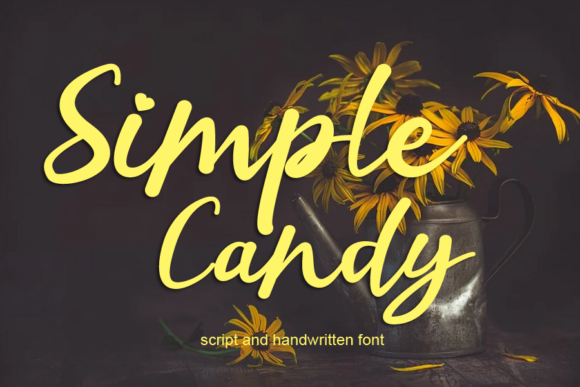
Introducing Simple Candy Font, an exquisite and captivating handwritten typeface designed to add a touch of elegance and charm to your digital creations. Let your words flow effortlessly with this beautiful script font, perfect for crafting heartfelt messages and leaving a lasting impression.
Imagine the delight of your loved ones as they receive your wedding invitations, meticulously adorned with the whimsical strokes of Simple Candy Font. Your thank-you cards will exude a warmth and sincerity that will make every recipient feel cherished. Transform your cherished quotes into breathtaking works of art that inspire and uplift the hearts of all who behold them.
With Simple Candy Font, your greeting cards become more than mere messages—they become intimate expressions of your love and care. Its delicate curves and flowing lines lend a personal touch to every handwritten note, making each interaction a memorable one. Businesses and professionals, too, can harness the power of Simple Candy Font to create captivating logos and business cards that exude sophistication and style.
But this font's versatility extends far beyond its charming appearance. Simple Candy Font is the ideal choice for electronic signatures, offering a touch of elegance to your digital presence. Whether you're signing contracts, approving documents, or simply adding a personal touch to emails, Simple Candy Font will elevate your communication with its unmistakable grace.
Crafted by the renowned Abadi letter, Simple Candy Font is a testament to the power of meticulous design. Every curve, every stroke, and every detail has been carefully considered to create a typeface that is both visually stunning and incredibly easy to use.